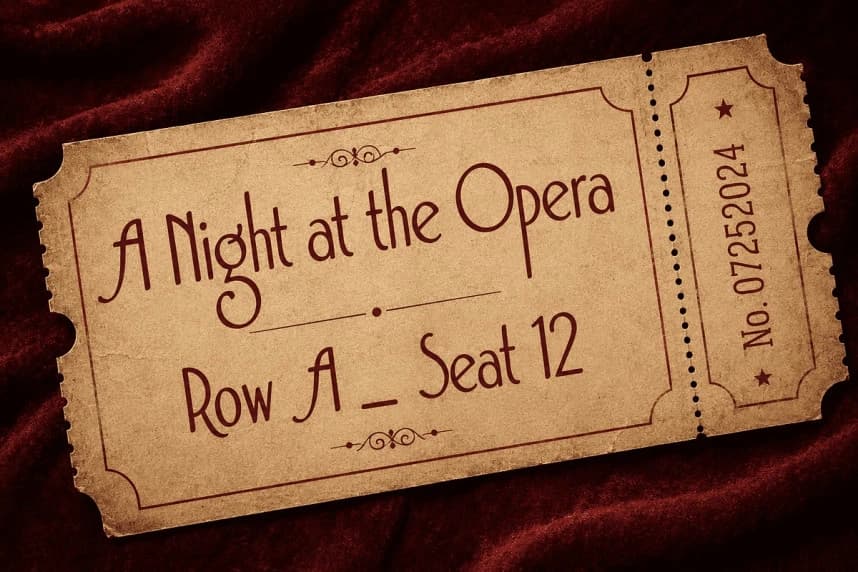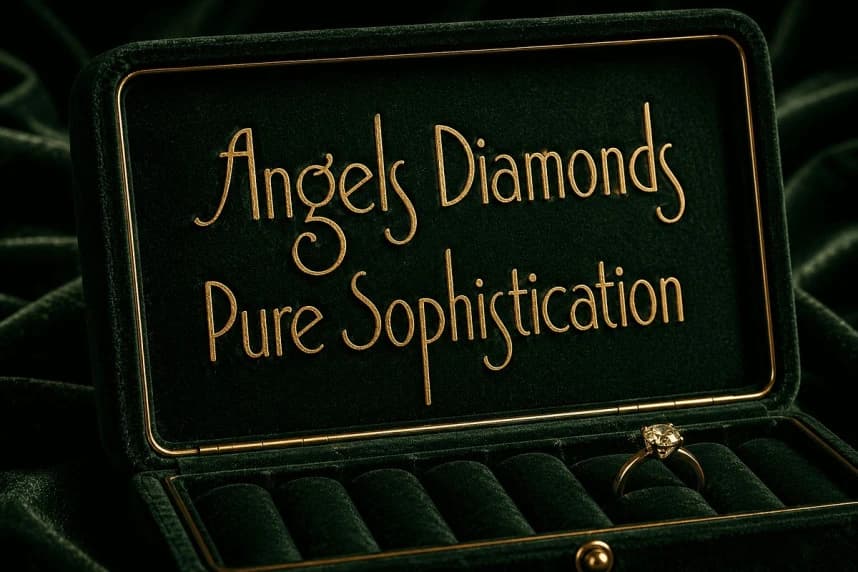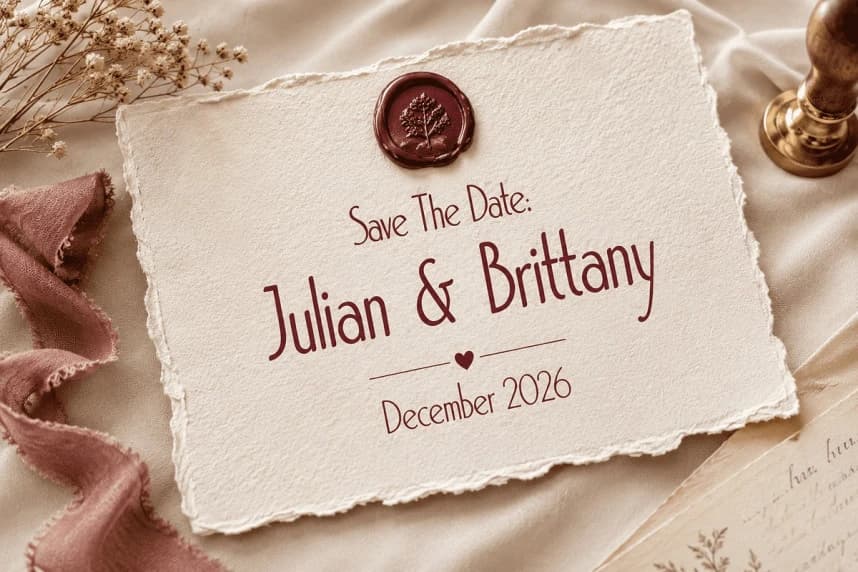
Aesthetic Rigelsia Font
Aesthetic Rigelsia Font — a handcrafted font that translates the golden age of Art Deco into every project you touch. Its signature ultra-tall verticals and sweeping geometric curves don’t just look beautiful. They command attention. They signal quality before a single word is read.
Aesthetic Rigelsia